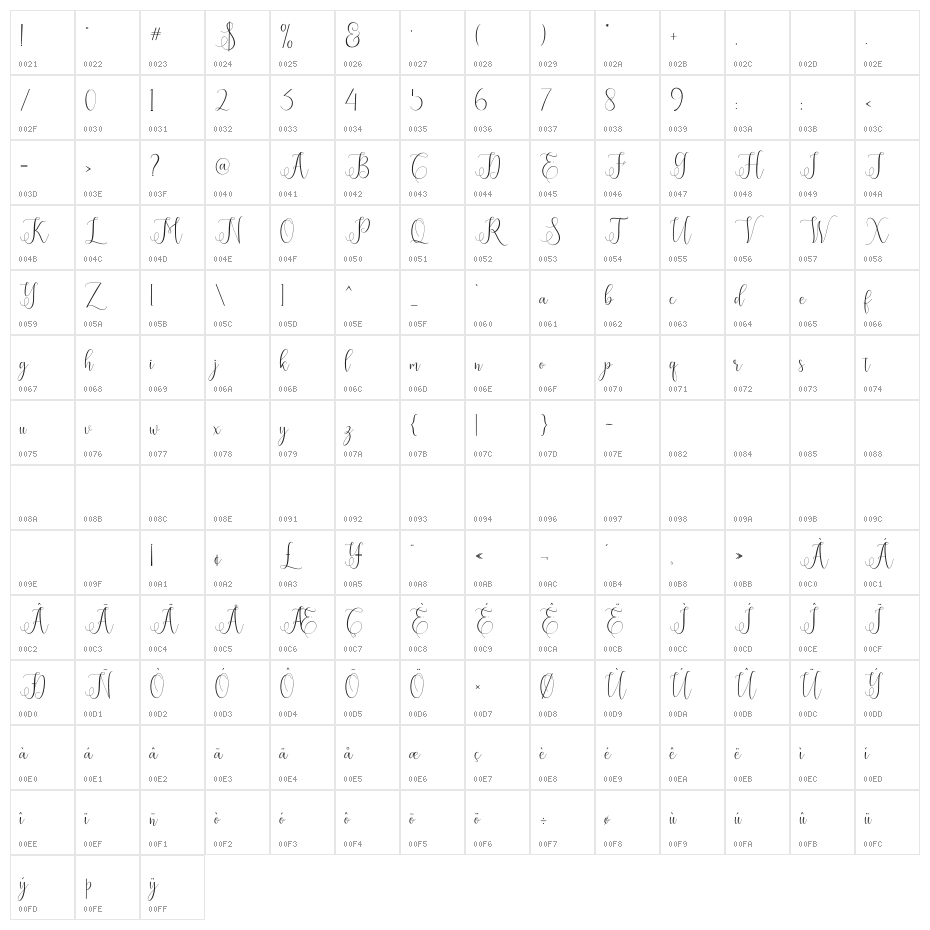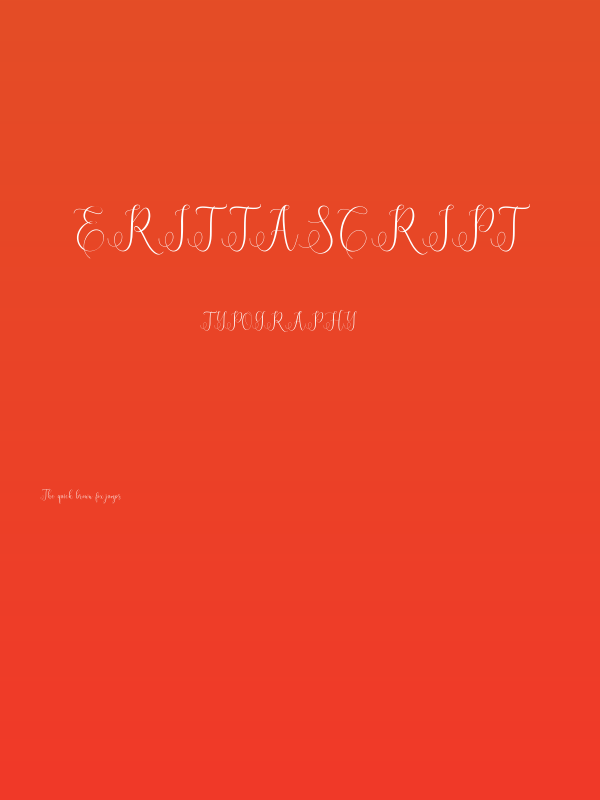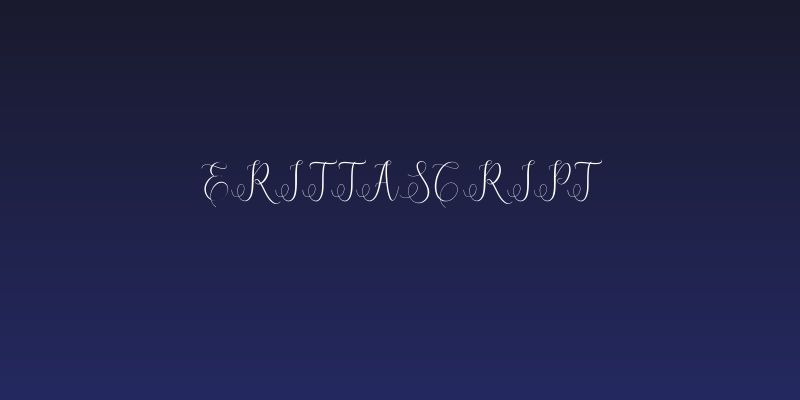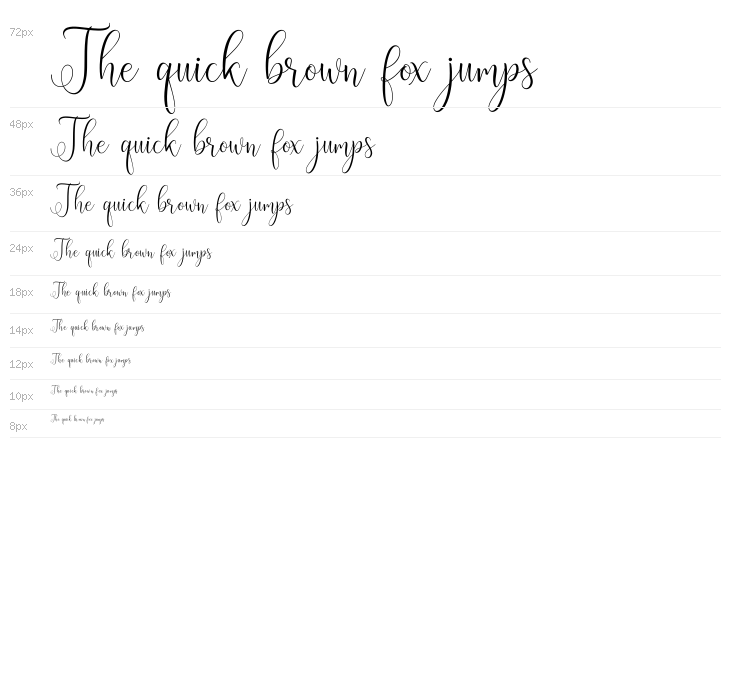
ErittaScript Font
✎ Script
| Kategorien | Script |
| Gesamtstil | Elegant, Artistic |
| Anwendungsfall | Logos, Invitations, Decorative text |
| Vorgeschlagene Projekte | Ideal for wedding invitations, luxury branding, greeting cards, and elegant packaging designs. |